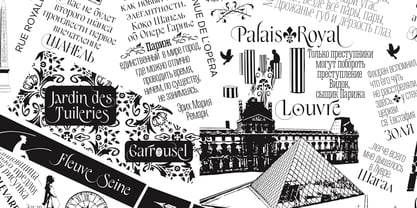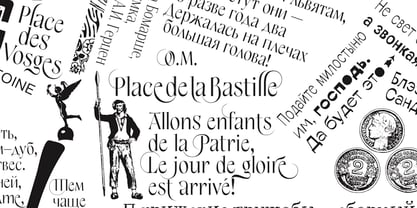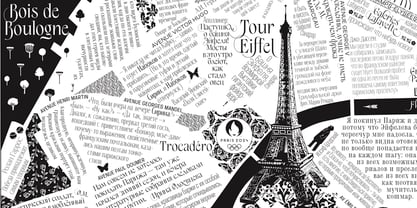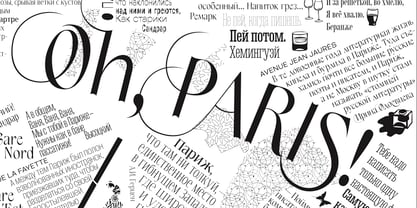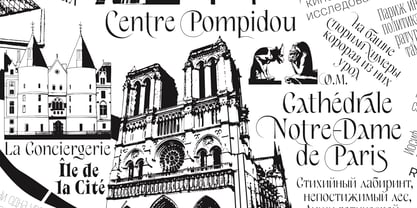
Die Schriftfamilie Foxie wurde von Yuri Gordon entworfen und von Letterhead Studio-YG veröffentlicht. Foxie enthält 1 Stile. Mehr über diese Familie
Foxie is a graceful and elegant typeface created specifically for the literary map "Oh, Parise!". Foxie has the personality of a little fox—cheerful, mischievous, and prone to surprises. The typeface is rich in alternates and filled with thin, sharp swashes, often intertwined with adjacent glyphs. While I was making the map, I experienced constant joy in working with Foxie. I hope your experience with it will be just as joyful.